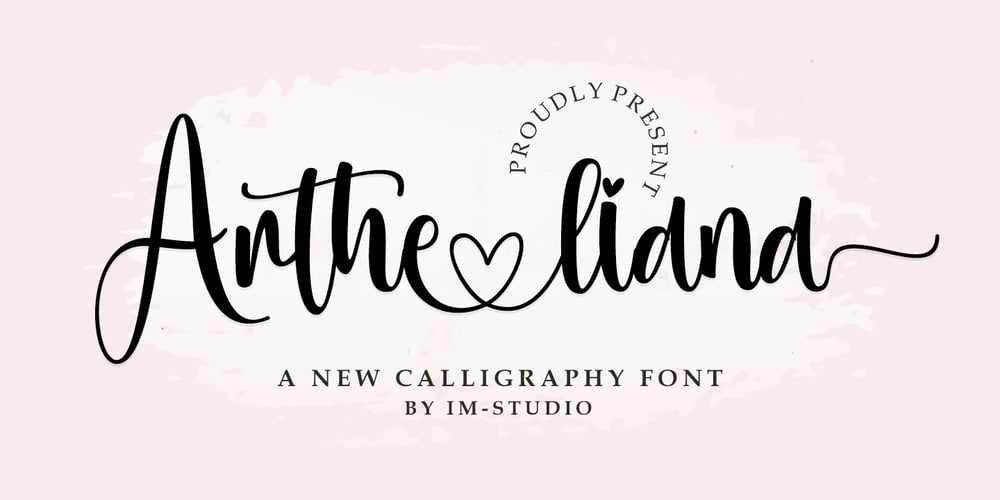
Artheliana Font Family was designed by Ikhsan Maulana and published by IM Studio. Artheliana contains 1 styles and family package options. Enhance your branding and wedding endeavors with the alluring “Artheliana.” This script font is ideal for sentimental messages, unique logo branding, and wedding invites since it skillfully combines romance and elegance. The Artheliana is your artistic partner whether you’re creating a wedding masterpiece or developing a brand that embodies love and connection. Give your projects a touch of romance and sophistication by selecting Artheliana for an incredibly engrossing design experience! Enter your desired changes in this section. Then, use the button below to paraphrase. It really is that simple!